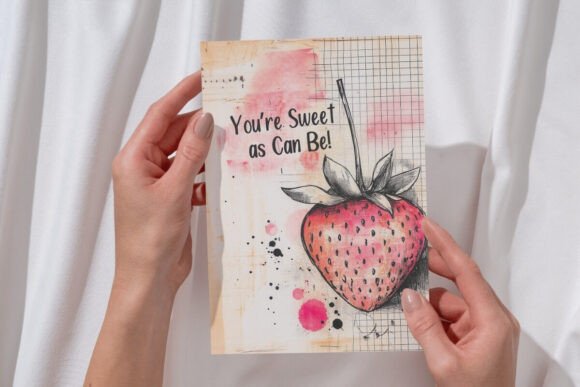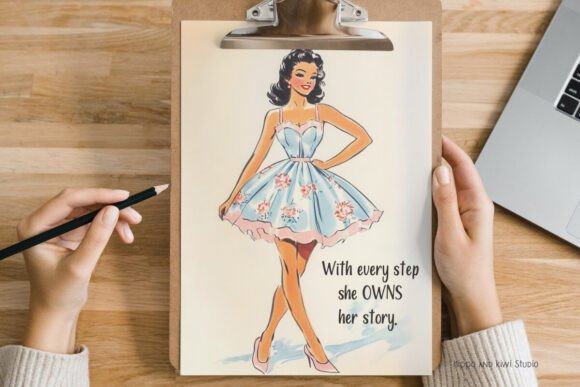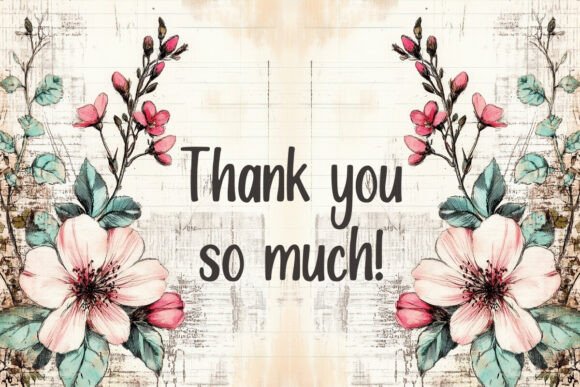
Introducing Cheerful Notes Font: Add a Playful Touch to Your Designs
Are you tired of using the same old fonts for your creative projects? Look no further than Cheerful Notes, a playful handwritten font that’s sure to add a dash of personality to your work. With its slightly quirky letterforms and natural flow, this font is perfect for designers and crafters who want to bring a touch of whimsy to their designs.
What Makes Cheerful Notes Font So Special?
Cheerful Notes font is a unique and charming typeface that’s designed to add a personal touch to your creative projects. Its handwritten style gives it a warm and friendly feel, making it perfect for a wide range of applications, from greeting cards and planners to social media graphics and print-on-demand designs.
Ideal for a Variety of Projects
So, what can you use Cheerful Notes font for? The possibilities are endless! Here are just a few ideas to get you started:
- Greeting Cards: Add a personal touch to your greeting cards with Cheerful Notes font. Whether you’re creating birthday cards, thank-you cards, or holiday cards, this font is sure to make your designs stand out.
- Planners and Stickers: Cheerful Notes font is perfect for planners, stickers, and other organizational tools. Its playful style adds a fun touch to your designs, making them more engaging and enjoyable to use.
- Scrapbooking: If you’re a scrapbooker, you’ll love Cheerful Notes font. Its handwritten style adds a personal touch to your pages, making them more special and meaningful.
- Branding and Social Media Graphics: Cheerful Notes font is also great for branding and social media graphics. Its unique style helps to create a distinctive look and feel for your brand, setting you apart from the competition.
- Print-on-Demand Designs: If you sell print-on-demand products, such as t-shirts, mugs, or phone cases, Cheerful Notes font is a great choice. Its playful style adds a fun touch to your designs, making them more appealing to customers.
Easy to Use
Bring a Delightful Touch to Your Designs
Whether you’re creating cute invitations, playful logos, or DIY craft projects, Cheerful Notes font is the perfect choice. Its hand-drawn style adds a delightful touch to your designs, making them more engaging and enjoyable to use.
So why settle for boring, generic fonts when you can add a playful touch to your designs with Cheerful Notes font? With its unique style and ease of use, this font is sure to become a favorite in your design toolkit.
At the end of the day, that’s what it’s all about – creating something special and meaningful. With Cheerful Notes font, you can do just that. So go ahead, get creative, and have fun with this amazing font!
In conclusion, Cheerful Notes font is a versatile and charming typeface that’s perfect for designers and crafters who want to add a playful touch to their designs. Its unique style, ease of use, and wide range of applications make it an excellent choice for anyone looking to bring a little personality to their creative projects.